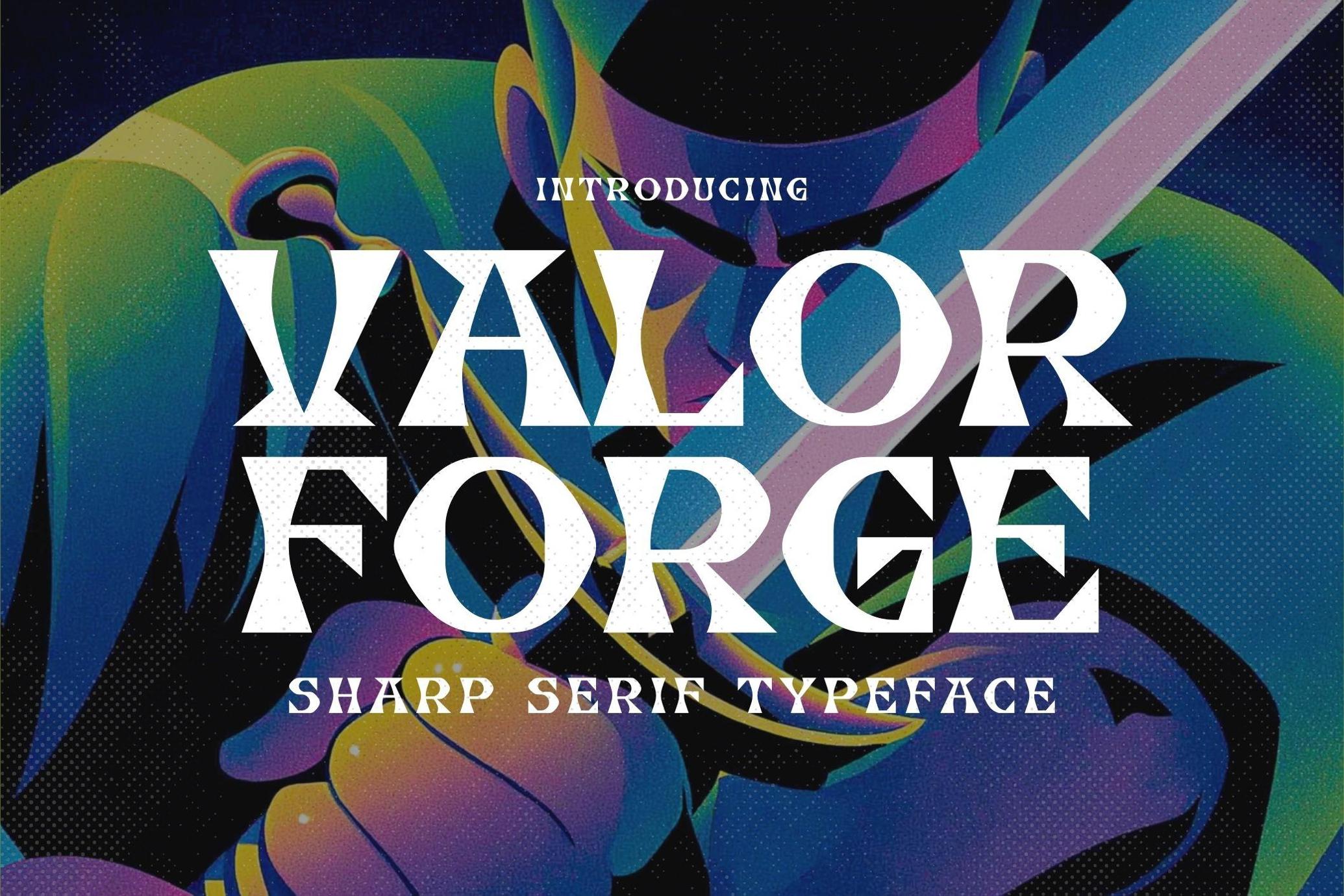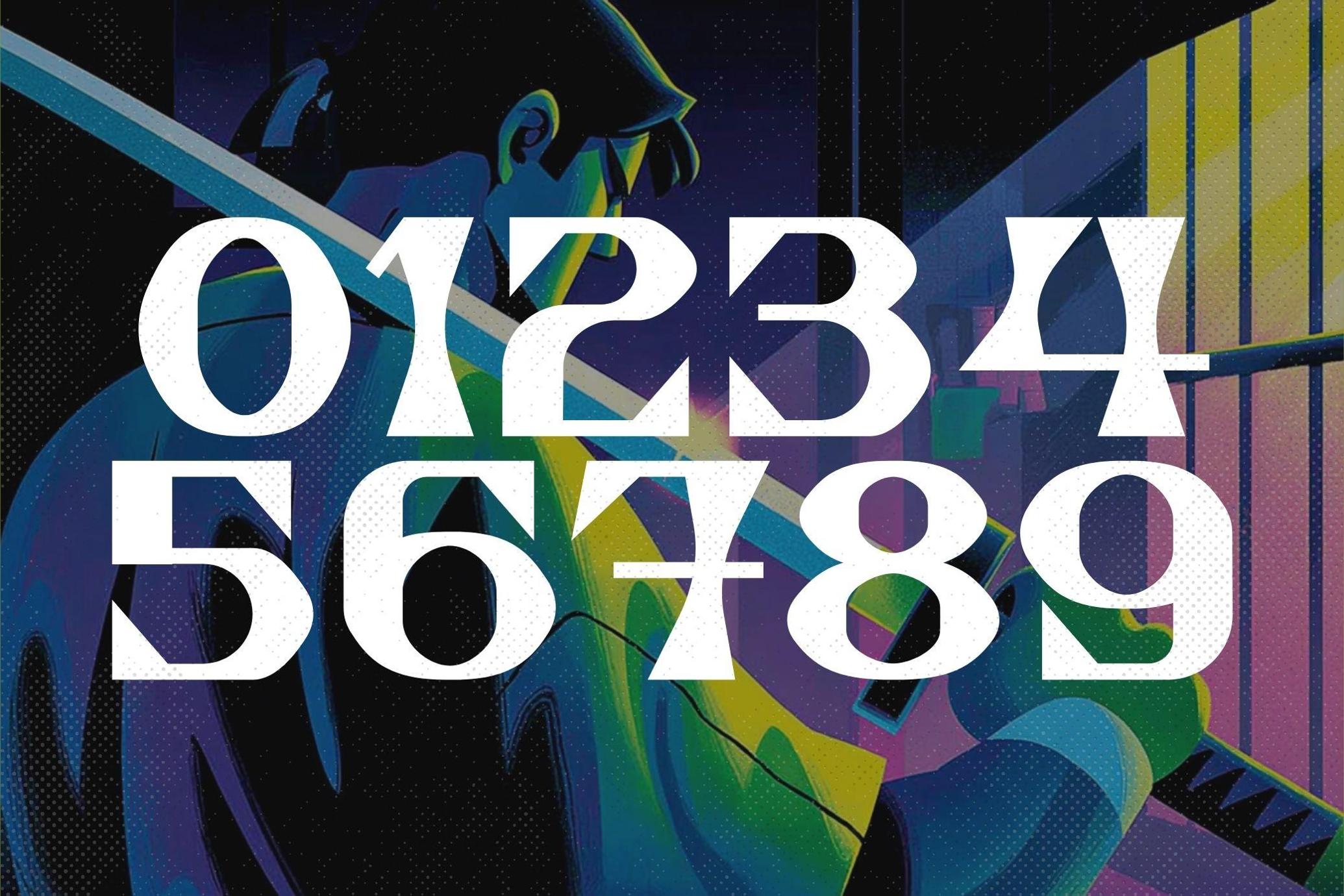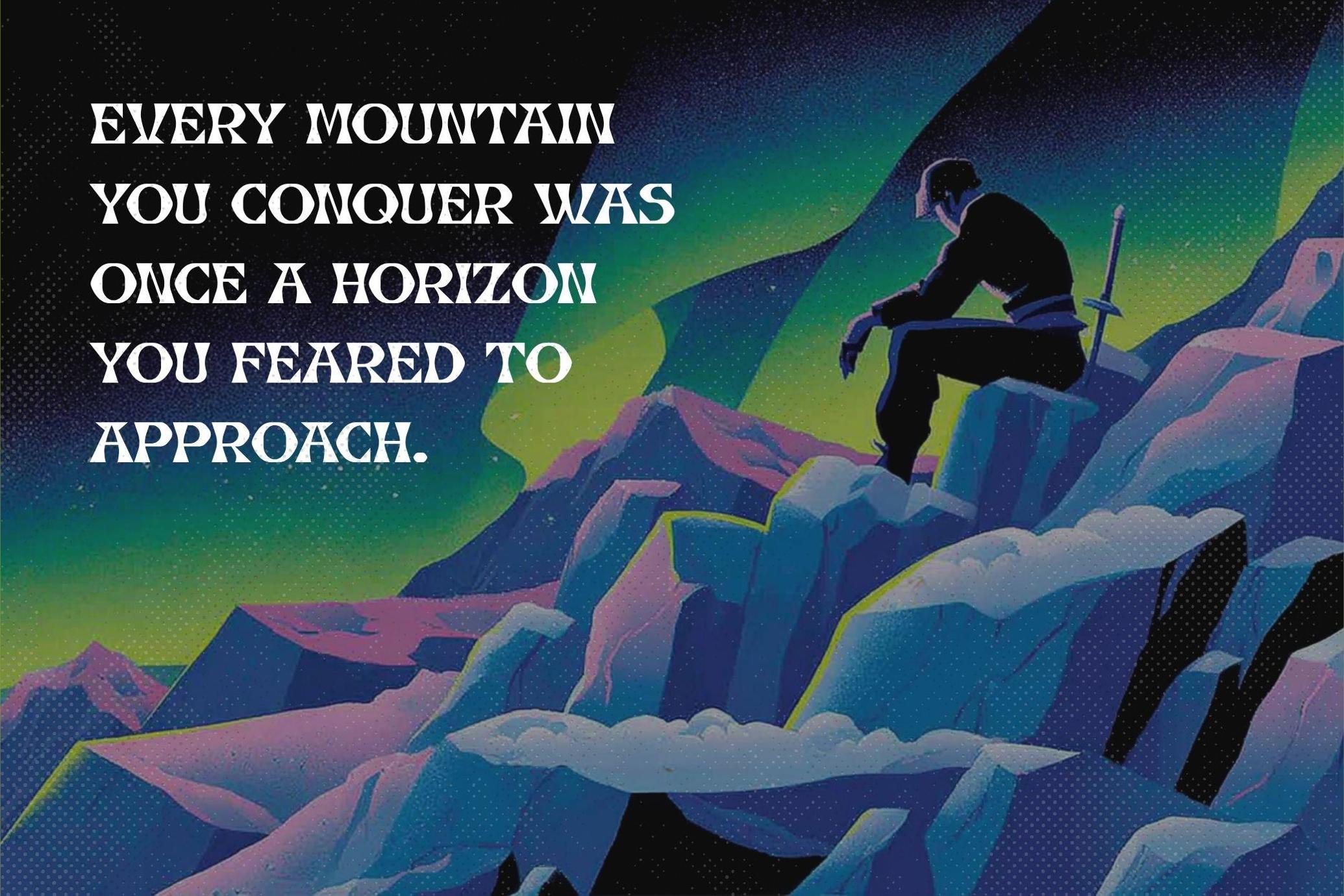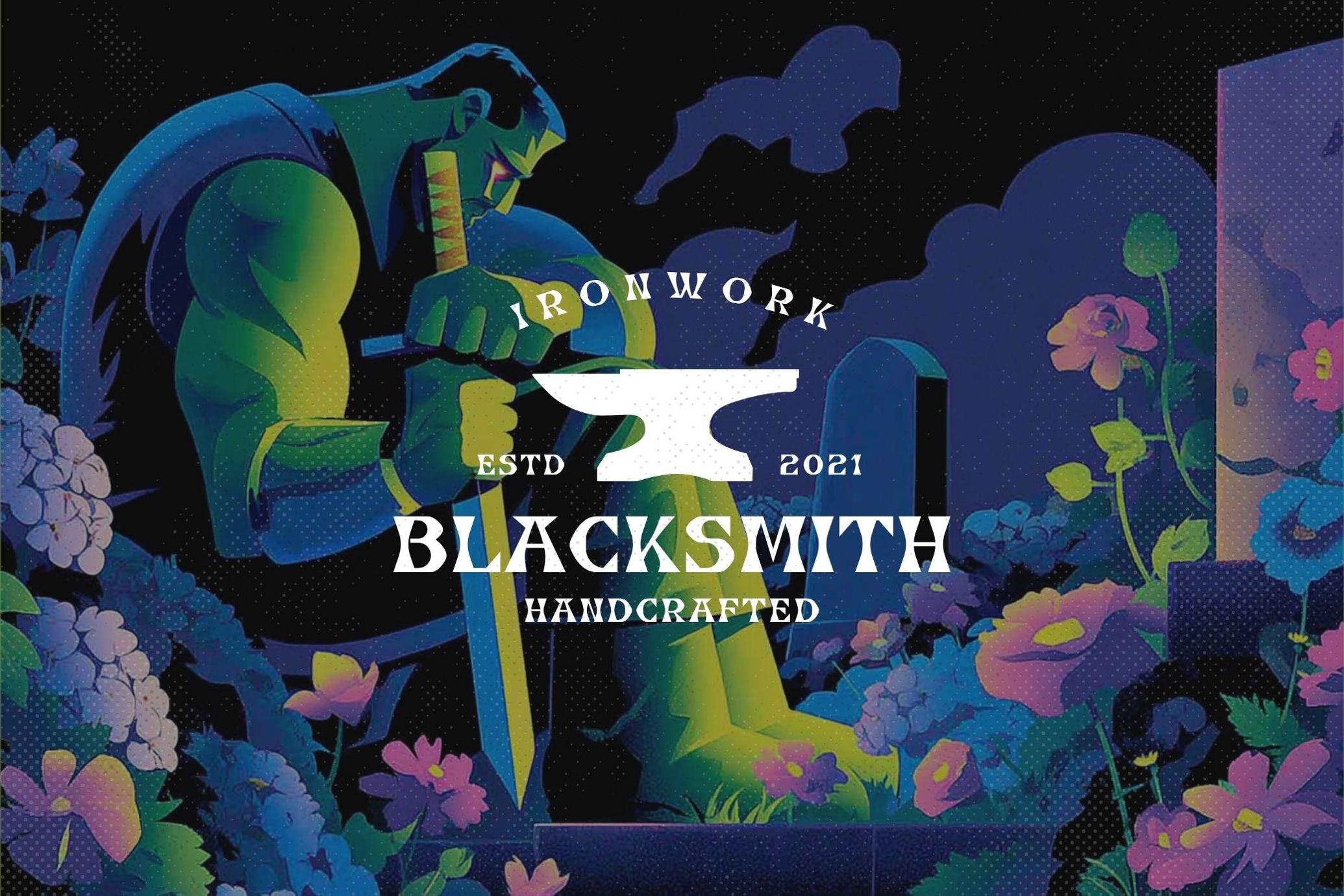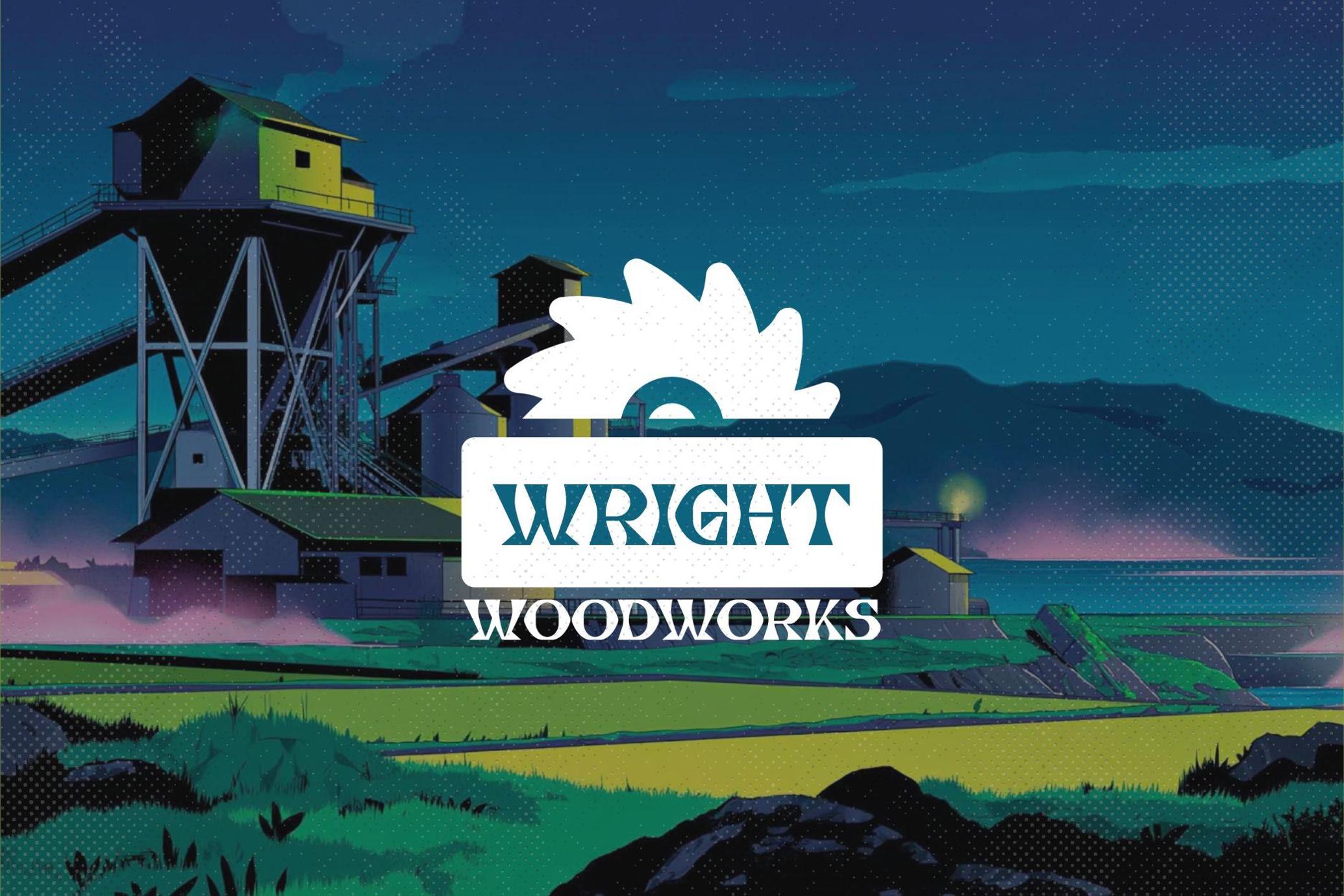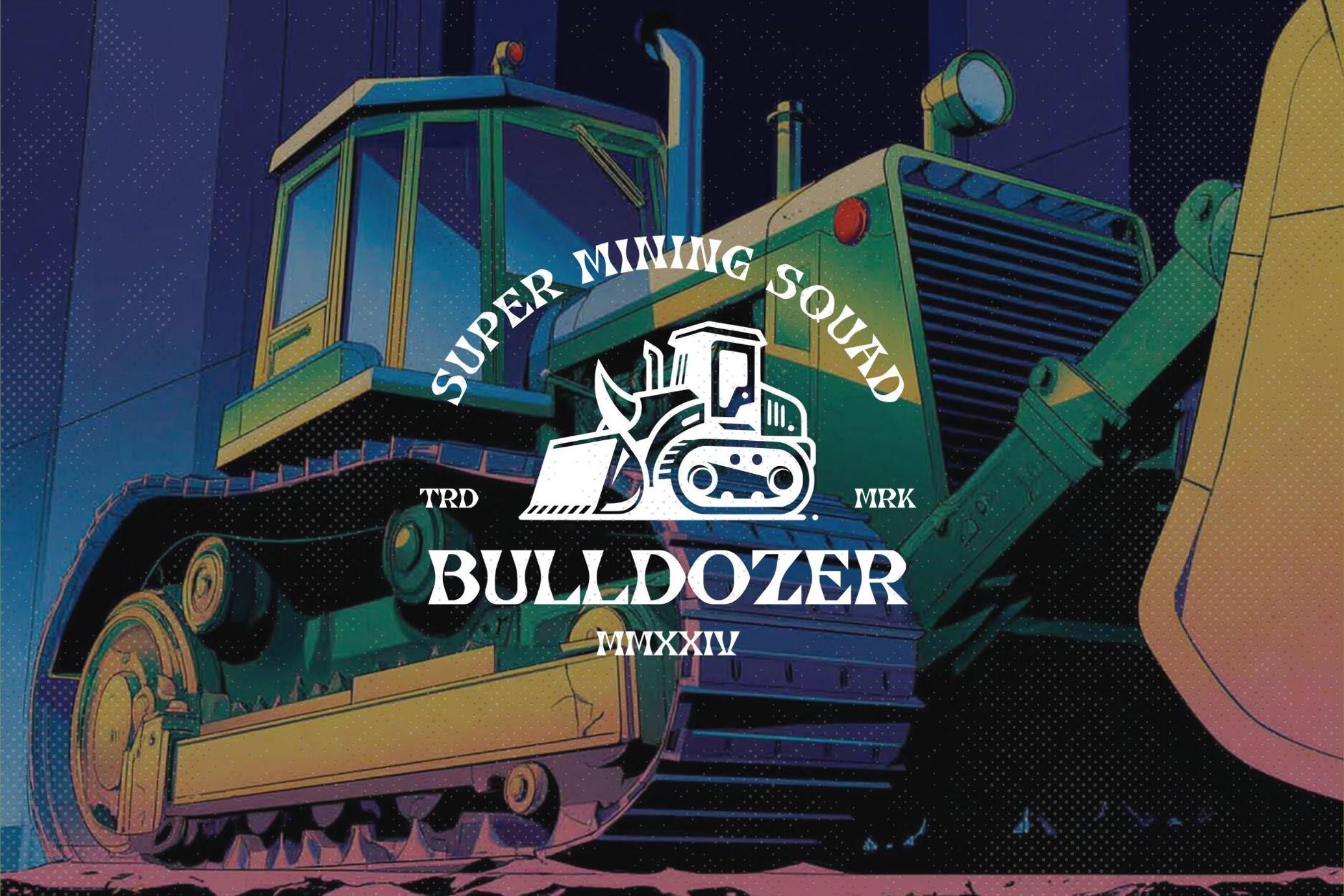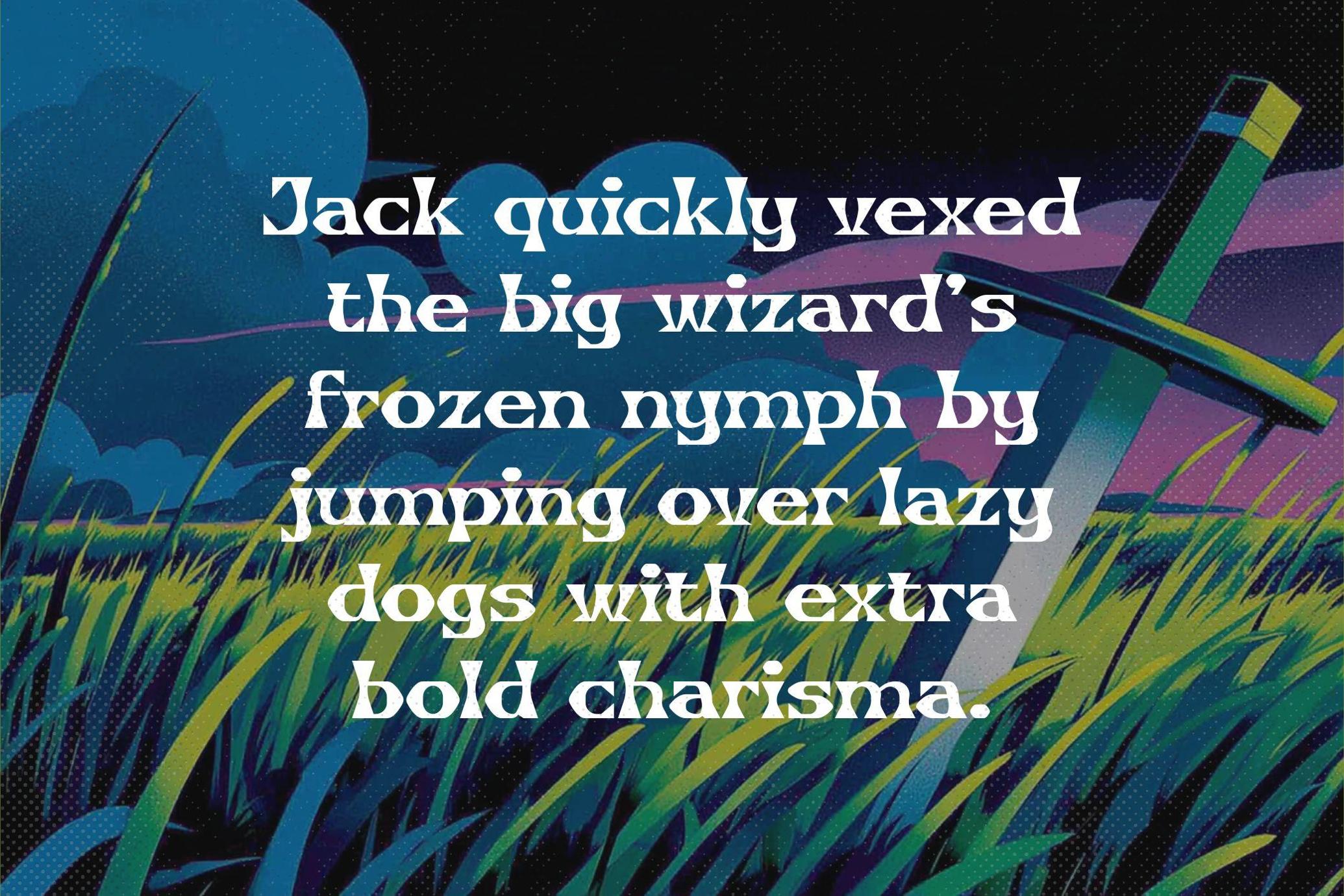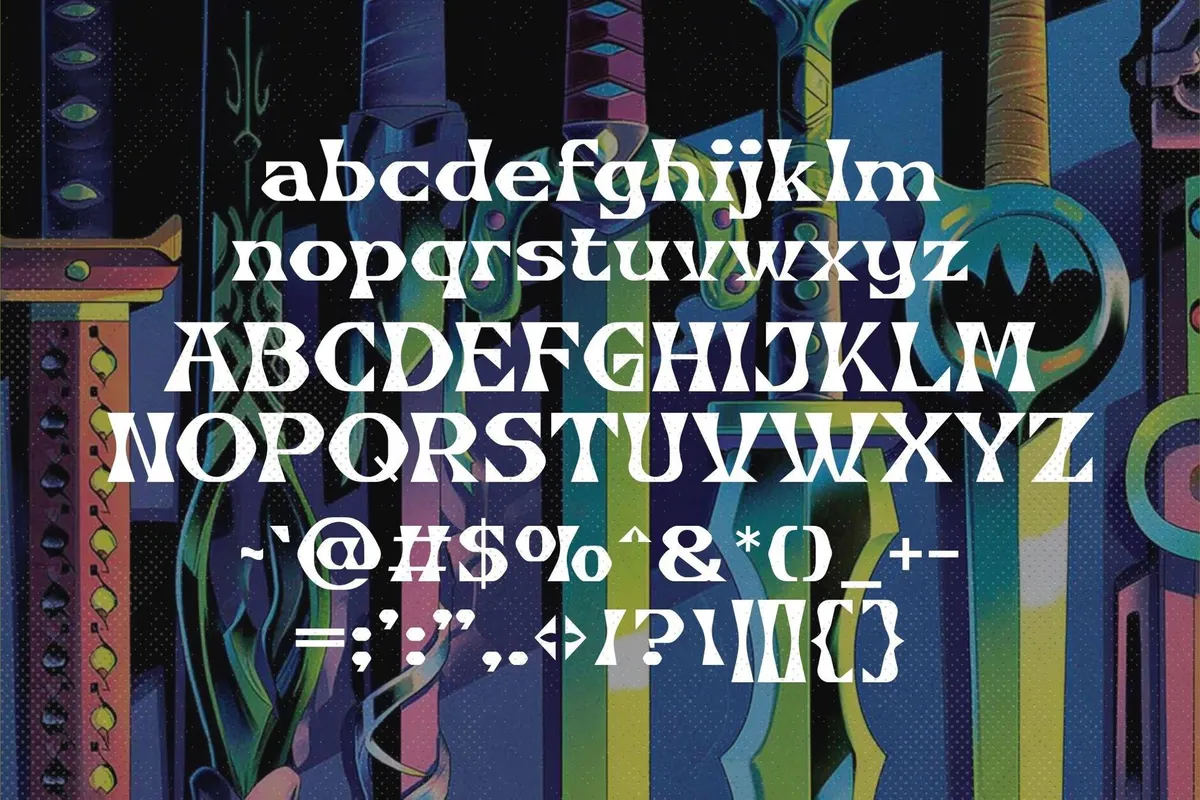
Valor Forge - Bold Masculine Typeface
Introducing Valor Forge, a bold and commanding typeface that exudes raw strength, unshakable confidence, and unapologetic masculinity. With its sharp angles, powerful lines, and forged-metal aesthetic, this font is the epitome of modern heroism, crafted for brands that demand attention and logos that leave a lasting impression.
Every letter in Valor Forge feels like it was hand-forged on an anvil of steel. It’s not just a font, it’s a declaration. Whether you're building a rugged brand, designing gear for warriors, or seeking a typeface that stands tall and proud, Valor Forge delivers the punch and presence your design deserves.
Perfect for branding, logos, apparel, sports, barbershops, outdoor products, tactical gear, and more, this typeface communicates power, purpose, and prestige with every glyph When you need your message to hit like a hammer, choose Valor Forge.